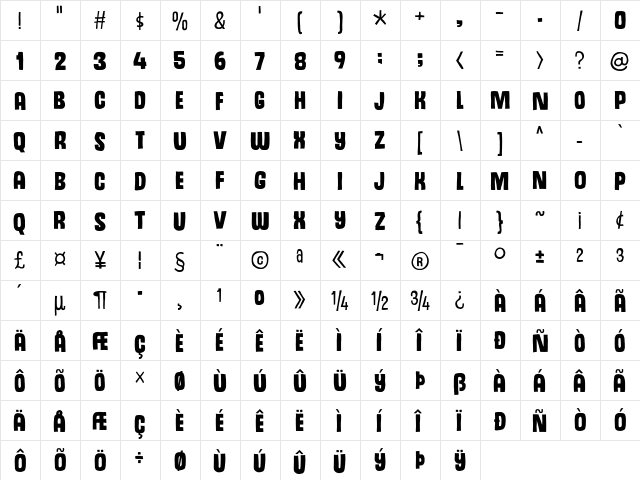
Dizzy Edge DEMO Regular
Design Context for Dizzy Edge DEMO Typeface
Dizzy Edge DEMO is a composed and adaptable typeface that performs quietly and consistently across a wide range of design contexts.